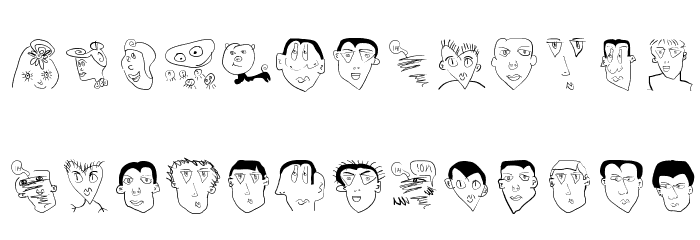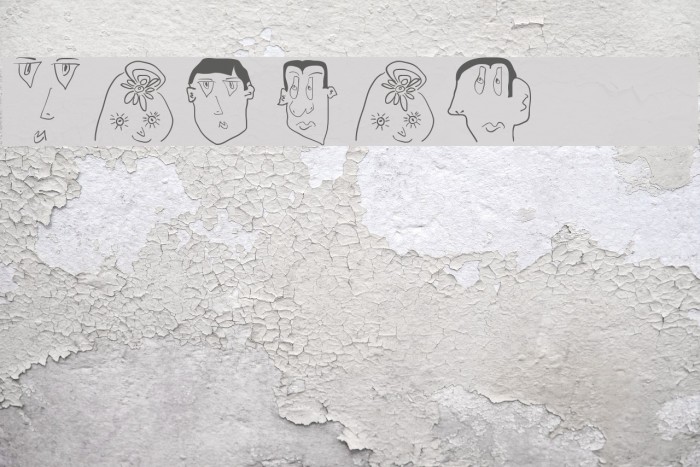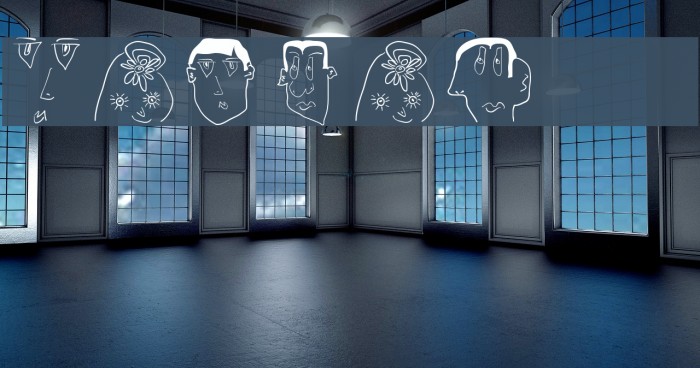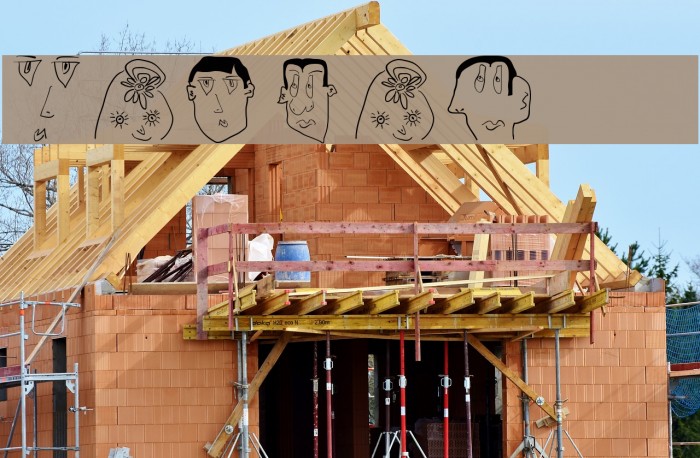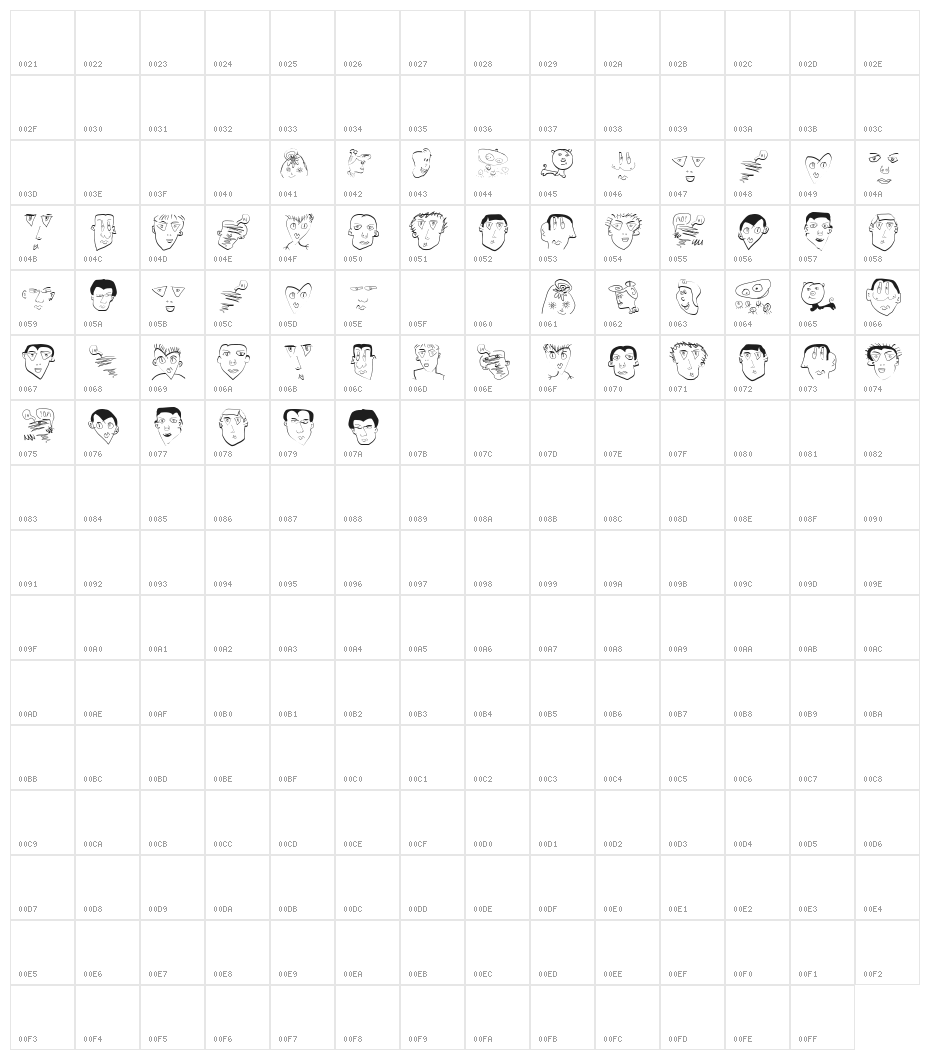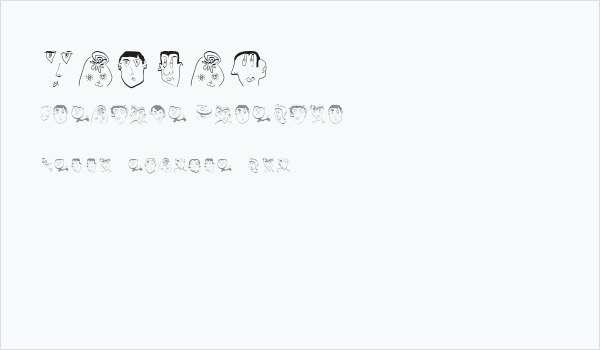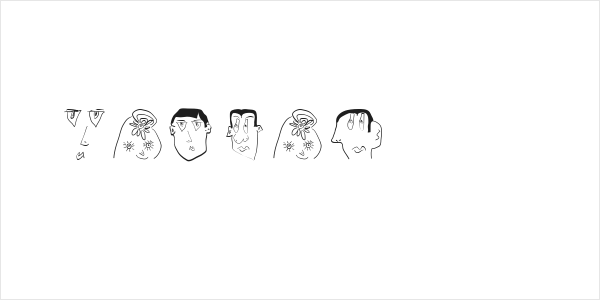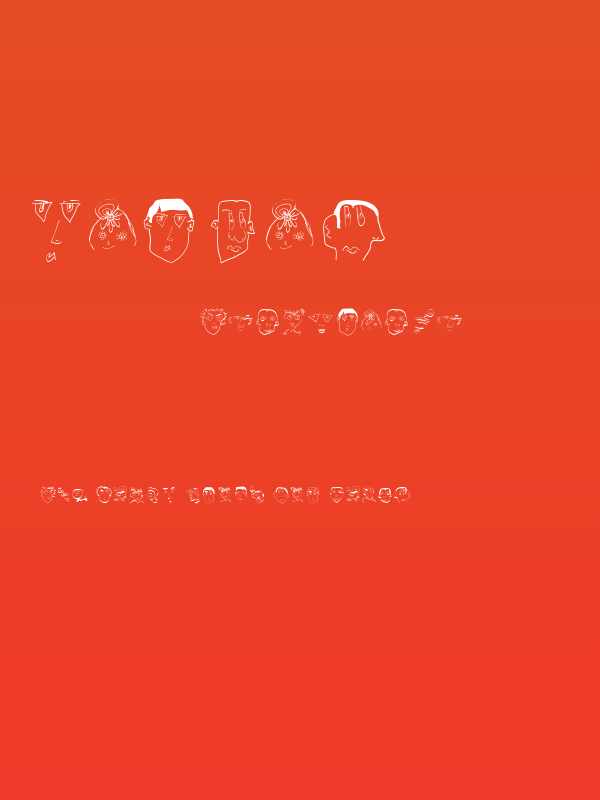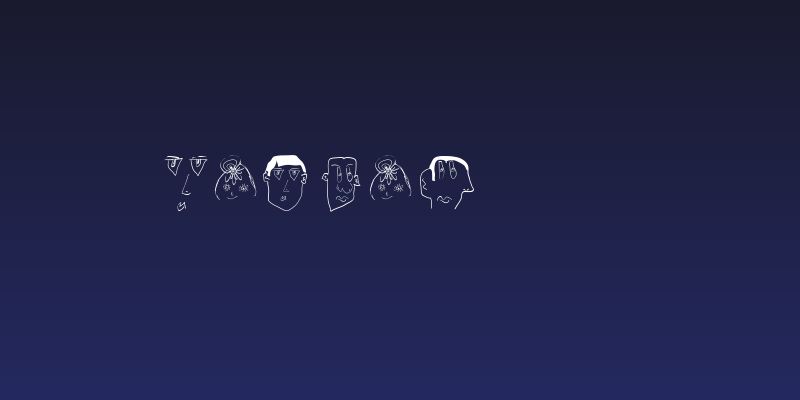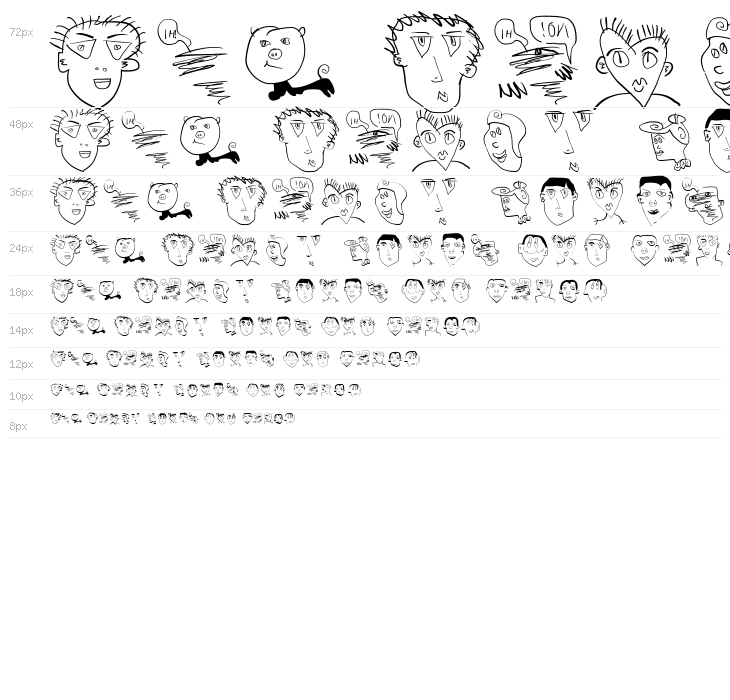
Karlas704 Font
This is not a traditional font but rather a collection of whimsical, hand-drawn faces and abstract shapes. Each character is uniquely illustrated, resembling doodles or sketches with a playful and artistic flair. The designs vary significantly, featuring a range of expressions and styles that evoke a sense of creativity and humor. This set is more of an artistic expression than a functional typeface, making it suitable for projects that require a touch of individuality and artistic charm.
A collection of hand-drawn, whimsical faces and abstract shapes.
- Proposed Projects: Ideal for creative projects, art pieces, children's books, or any design requiring a playful and artistic touch.
- Character Spacing: Varied, as each character is uniquely drawn.
- Contrast:
- Overall Style: Artistic, Whimsical, Playful
- Use Case: Art projects, Decorative elements, Creative designs